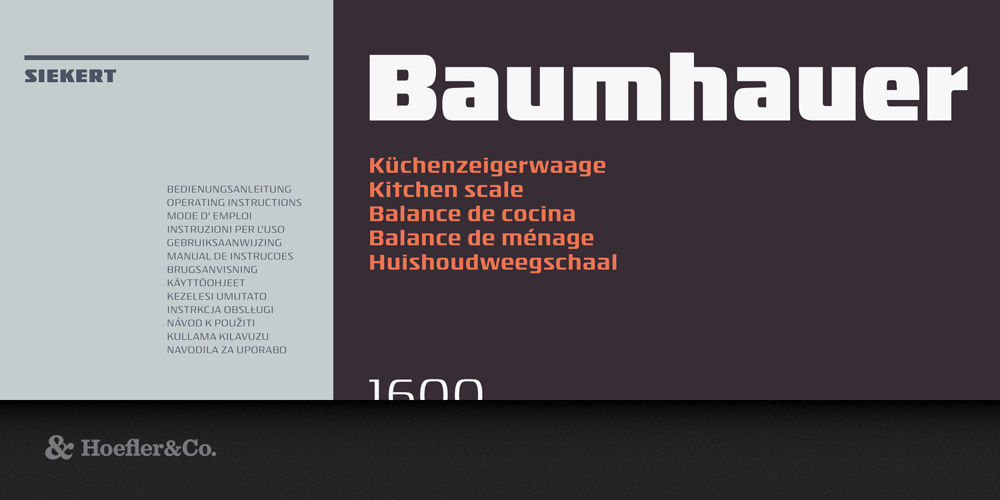
Isotope Font Family was designed by Jonathan Hoefler and published by Hoefler & Co.. Isotope contains 8 styles and family package options. Inspired by a style of lettering invented to convey precision and reliability, Isotope is a new family of typefaces designed to be both luxurious and fit. The Isotope typeface was designed by Jonathan Hoefler in 2018. A functionalist sans serif, in which large sweeping curves and subtle small ones are used in counterpoint to the design’s compact, brutalist construction, Isotope was inspired by a style of lettering popularized by the manufacturers of consumer goods in postwar Germany. From the desk of the designer: If your idea of a luxurious product is one that’s stainless steel rather than gold, you may be a Functionalist. Functionalism is an approach to design that gained popularity in the decade after World War II, especially among German manufacturers of consumer goods, for whom a thing’s visual design was the natural expression of how it was meant to be used. In their desire to be intuitive and straightforward, the designers of a generation of unobtrusive radios, bathroom scales, and turntables would define a new aesthetic, one that still resonates with us as useful, well-built, honest, and timeless. In the years that followed, the Swiss International Typographic Style would supply the letterforms for this philosophy, and industrial design would forever be associated with Helvetica and Univers. But briefly, before Swiss typography swept the continent, there was a strikingly beautiful species of letterform that arose in Germany — never produced as a typeface, but popular among lettering artists, through whom it became fossilized in company logos. For their precision-built products, companies like Sennheiser, Liebherr, Soehnle and Leifheit would adopt this new style of letterform, to convey the solidity, reliability, and practicality of products from kitchen appliances to bulldozers. It’s this style that we’ve explored in Isotope. Where Functionalist lettering was limited to boxy capitals, Isotope reimagines the style across a full range of weights, and a complete character set including a lowercase. The broadest strokes of the style have been preserved — contrasting vertical and horizontal weights, complex letters like S reduced to their most linear essence — to which Isotope brings new subtleties that help make the design not just purposeful, but luxurious and elegant. Corners are intermittently softened, to heighten the momentum through letters like A, M, N, V and W; in the numbers, strokes are sheared at unexpected angles, to give them a welcome liveliness. From the initial Ultra at the heaviest end of the spectrum, Isotope descends through eight discrete weights down to a sinewy Thin, where subtle details rescue the design from sterility, to create a typeface that’s smartly clinical, and reassuringly exact.